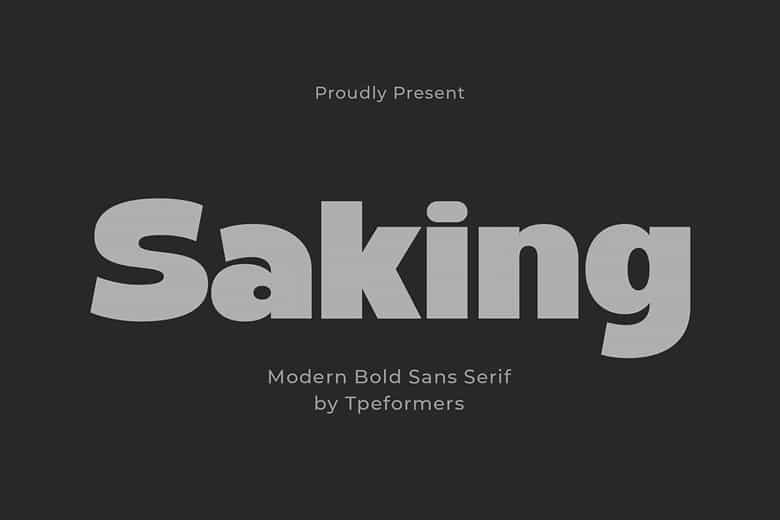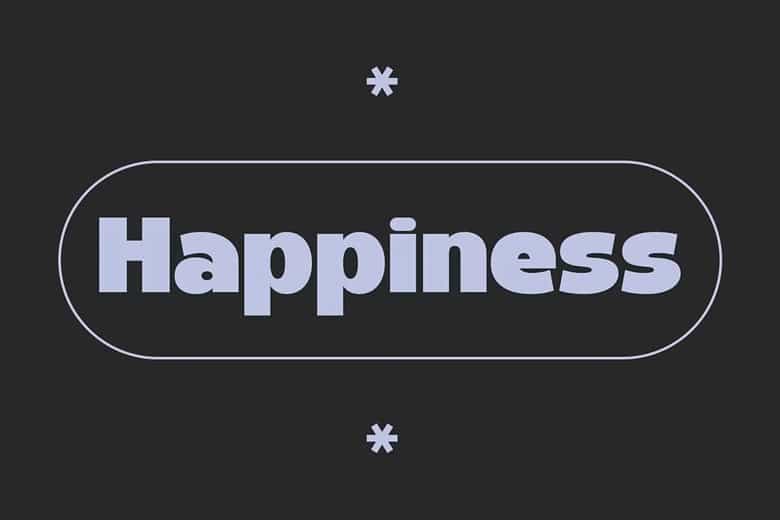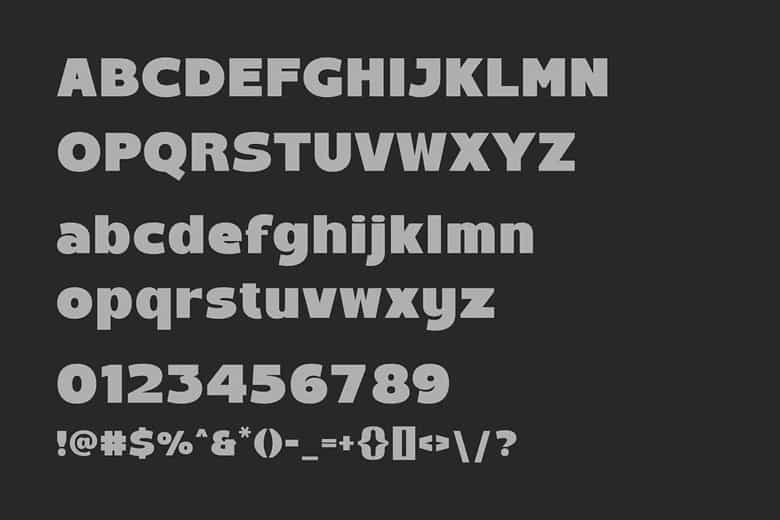
Saking is a new bold elegant sans serif typeface. The typeface itself is harmonious and readable by virtue of the fact that each letter is constructed from smooth, symmetrical shapes that shine on all media. It is suitable for logos, headlines, web designs, where its bold presence allows to add a professional accent to your projects.